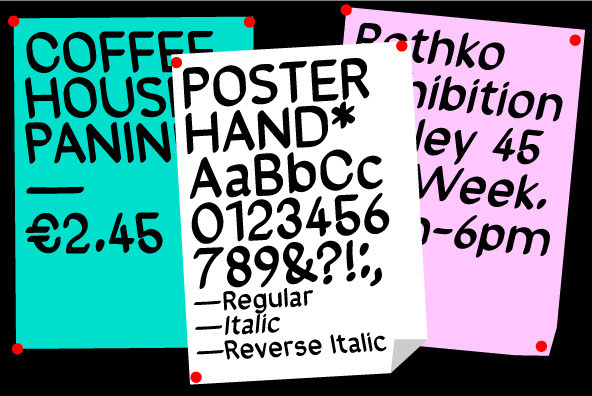
Poster Hand Font
Poster Hand Font is perfect for retro event promotions, vintage poster design, artisanal advertising campaigns, hand-painted signage, nostalgic marketing materials, craft workshop communications, artistic exhibition graphics, and authentic handmade branding. This expressive typeface works wonderfully in both digital applications and print media where handcrafted authenticity and vintage poster charm are essential design elements.
What makes Poster Hand Font so exciting is its authentic capture of vintage poster painting tradition through bold letterforms that seem hand-lettered with the same artistic skill and commercial flair that defined the golden age of hand-painted advertising and promotional displays. The font features expressive characters with poster-worthy proportions, painterly curves, and handcrafted details that communicate artistic authenticity, vintage charm, and the irreplaceable quality of hand-lettered signage from an era when every poster was a work of art. Its artistic personality and commercial heritage make it ideal for brands seeking to establish authentic vintage credibility while appealing to audiences who appreciate the craftsmanship and artistic quality of traditional hand-painted advertising.
The Poster Hand Font family includes multiple weight variations with different brush intensities, along with painterly alternates and vintage ornamental elements. Each style maintains the typeface's handcrafted character while offering comprehensive character sets including artistic numerals, hand-painted punctuation marks, and special symbols designed to enhance vintage communications and artisanal branding efforts across various authentic contexts.
This remarkable typeface represents the perfect marriage of poster art tradition and contemporary design functionality for vintage-inspired and artisanal industries. Whether you're developing retro brand identities, creating vintage event materials, or designing artisanal product campaigns, Poster Hand Font Free Download provides the authentic craftsmanship and versatility needed to capture the magic of hand-painted advertising. The font's vintage appeal makes it particularly effective for craft businesses, vintage retailers, artisanal producers, and businesses celebrating the artistic heritage and authentic quality of hand-lettered poster art.
The carefully crafted painterly details and optimized vintage performance in Poster Hand Font ensure both artistic authenticity and clear communication across all handcrafted applications. Its expressive presence makes it perfect for vintage branding, artisanal marketing materials, and authentic communications where its full hand-painted character can create lasting connections with audiences who appreciate the artistic skill, vintage charm, and irreplaceable authenticity of traditional poster art and hand-lettered advertising craftsmanship.